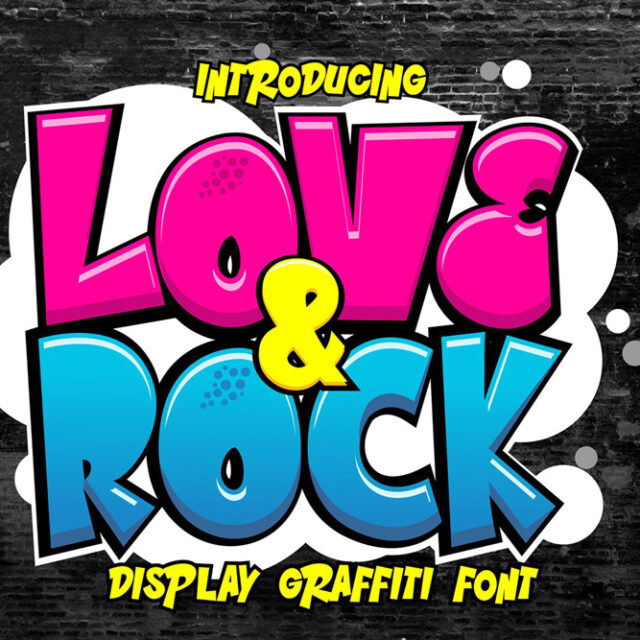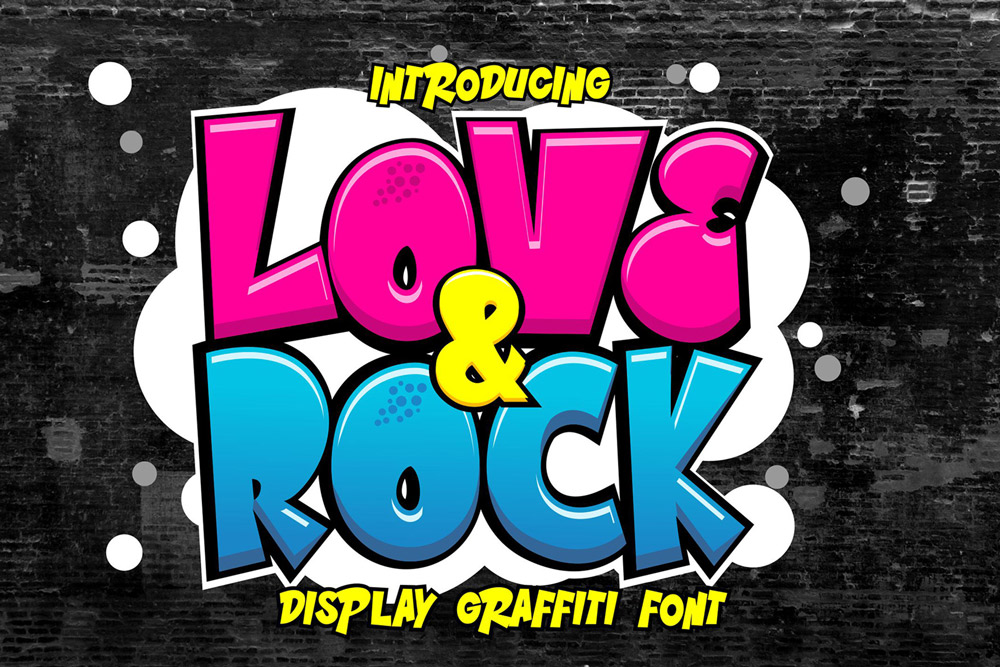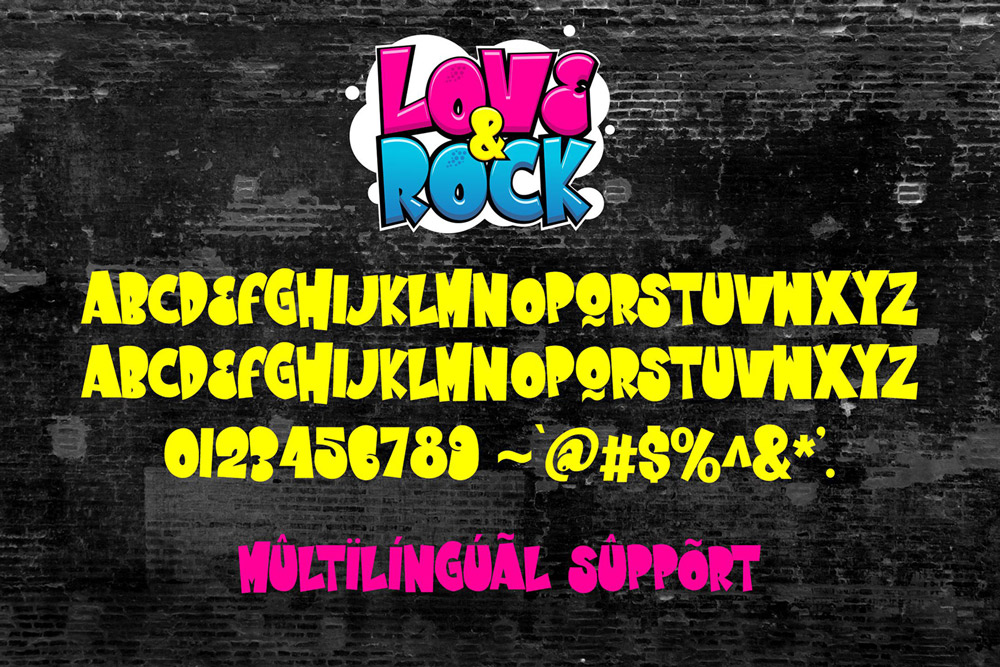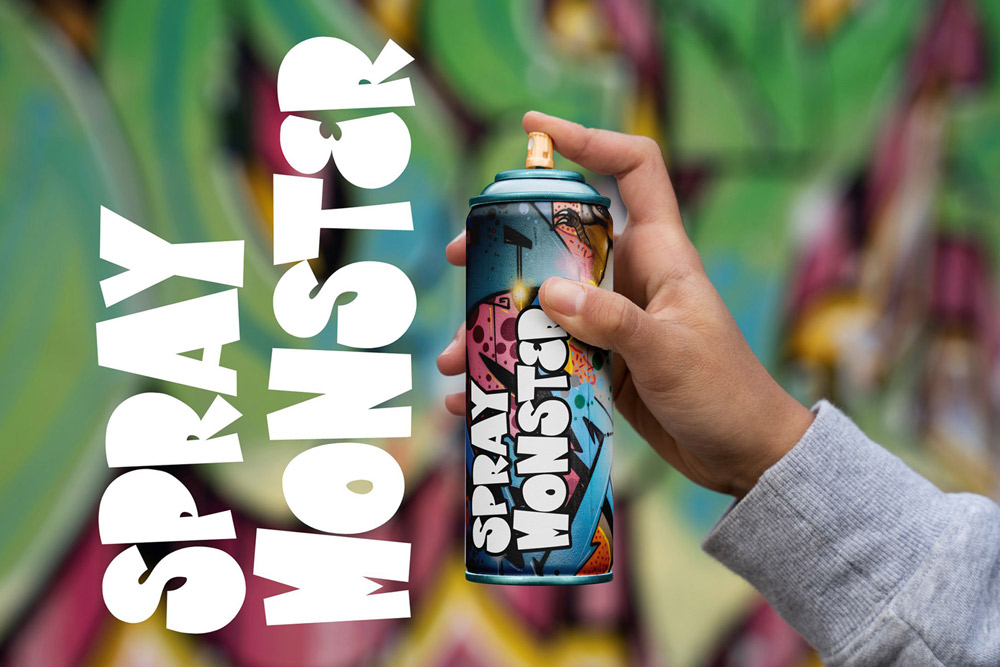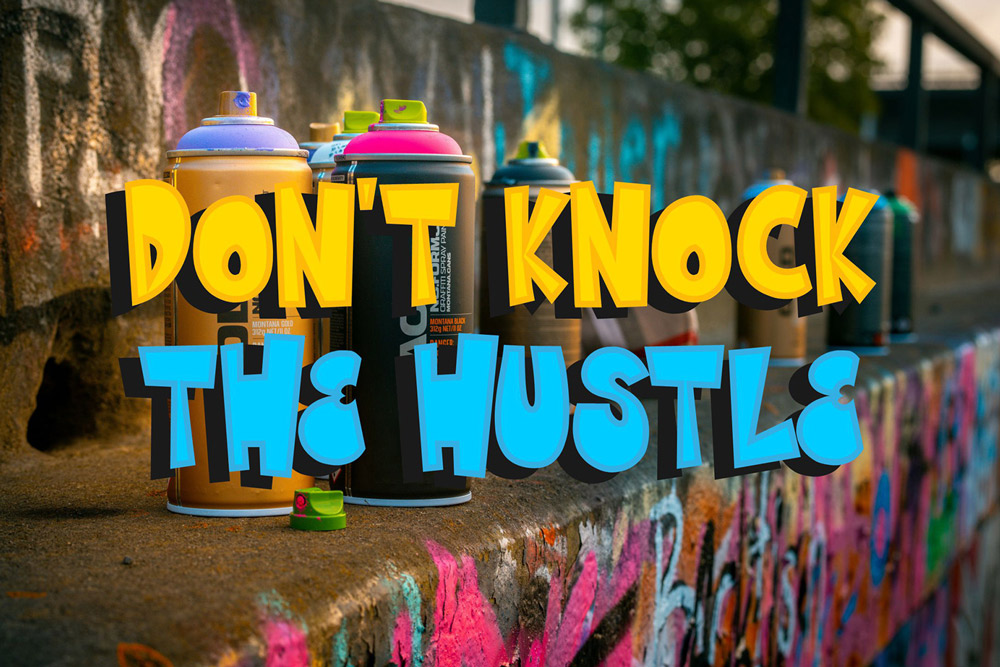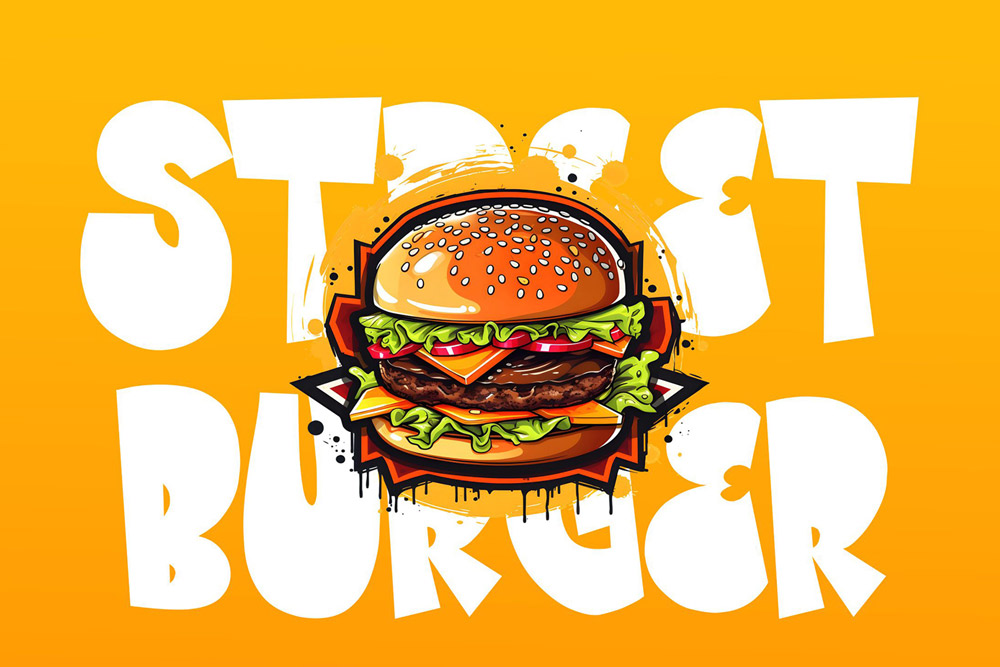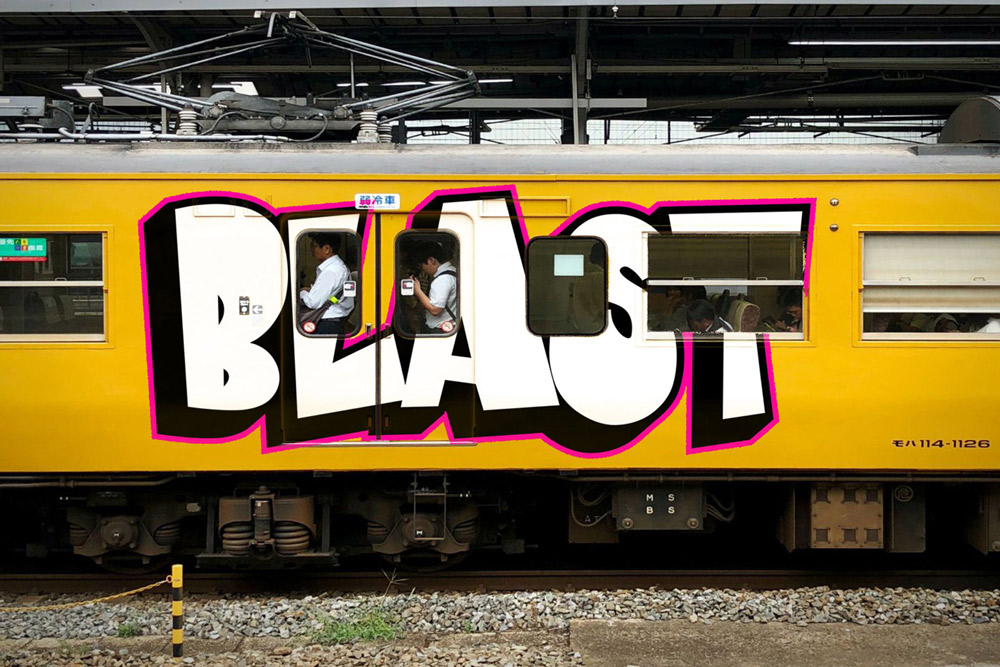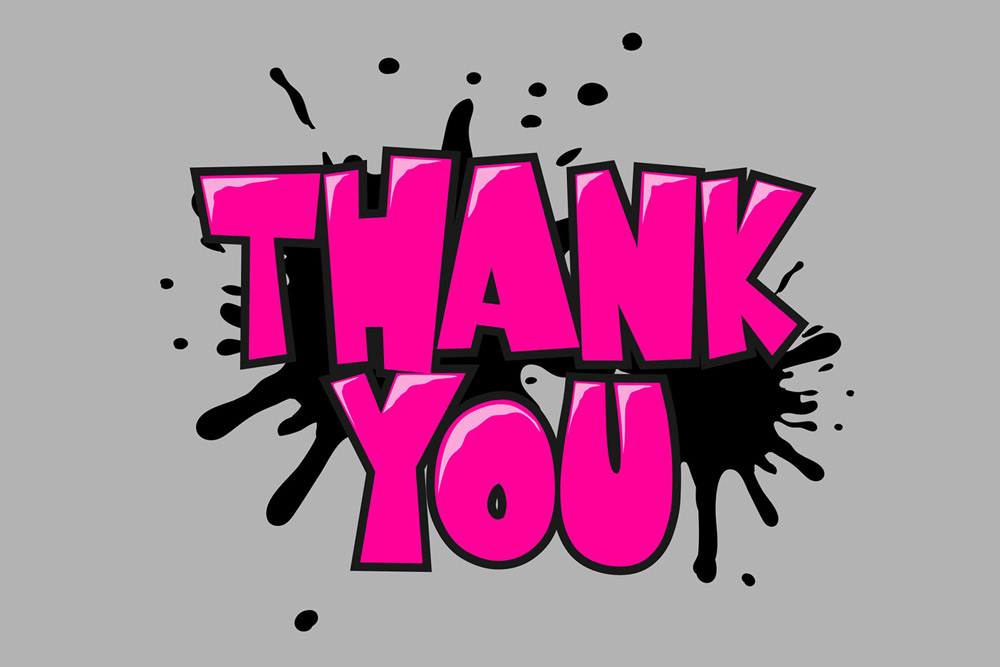
Love and Rock
About Love and Rock
Love and Rock – Raw Graffiti Font with Attitude
Love and Rock is a high-impact graffiti font that blends rebellious street energy with expressive rock-inspired lettering. Designed for creators who want to push boundaries, this urban graffiti font delivers a bold, emotional, and raw visual identity that instantly grabs attention. Whether you’re designing for streetwear, music branding, or edgy posters, Love and Rock graffiti font gives your typography a fearless voice.
This graffiti display font captures the essence of underground culture—where love meets chaos and creativity meets rebellion. Every stroke feels alive, making it perfect for designers who want authentic street style fonts that stand out in a crowded visual landscape.
Built for Street Expression and Creative Freedom
Love and Rock graffiti font is inspired by real tagging culture and rock aesthetics, combining fluid motion with sharp attitude. This graffiti font brings a unique rhythm to your designs, allowing text to feel expressive and alive. Its bold structure makes it highly readable while still maintaining the raw energy of an authentic urban font.
Whether you’re working on digital or print projects, this graffiti typeface adapts seamlessly. From album artwork to apparel graphics, Love and Rock transforms your ideas into powerful visual statements using a modern graffiti font style.
A Graffiti Font That Demands Attention
Every letter in Love and Rock graffiti font is carefully crafted to deliver maximum visual impact. The strokes are bold yet dynamic, giving your typography movement and personality. This graffiti display font is designed to dominate layouts, making it perfect for headlines, logos, and branding.
Unlike generic fonts, this urban graffiti font has character. It carries the spirit of rebellion and individuality—qualities that resonate strongly in today’s creative industries. If you want a graffiti font that feels authentic and energetic, Love and Rock is your ultimate choice.
Complete Character Set & Typography Features
This professional graffiti font includes everything you need to create bold and versatile designs across multiple platforms.
✔ Uppercase Characters
Strong and expressive uppercase letters designed with authentic graffiti font style for impactful typography.
✔ Multilingual Support
Supports multiple languages, making this graffiti typeface perfect for global branding and international projects.
✔ Numbers & Punctuation
Full set of numbers and punctuation ensures flexibility for all design needs using this urban graffiti font.
• Authentic graffiti font design inspired by street culture
• Bold and expressive lettering style
• Perfect for urban branding and streetwear design
• High readability for display purposes
• Versatile usage for digital and print media
• Ideal for logos, posters, and music artwork
• Strong personality and visual impact
Why Designers Love Love and Rock
Designers are drawn to Love and Rock graffiti font because it combines emotional expression with visual power. This graffiti font is not just about style—it’s about storytelling. It allows creators to communicate energy, rebellion, and passion in every design.
The flexibility of this urban graffiti font makes it suitable for a wide range of projects. From streetwear collections to album covers, designers trust Love and Rock to deliver bold results. Its strong shapes and dynamic flow make it easy to use while still offering a unique look.
Another reason designers love this graffiti display font is its authenticity. It doesn’t feel manufactured—it feels real, raw, and connected to street culture. That authenticity is what makes it stand out in modern design trends.
Perfect For Creative Projects
Love and Rock graffiti font is ideal for:
• Streetwear branding
• Music album covers
• Graffiti posters and flyers
• Social media graphics
• Logo design with urban style
Powerful Closing
Love and Rock – Graffiti Font is more than just typography—it’s a statement. It represents passion, rebellion, and creative freedom. If you want your designs to speak louder and hit harder, this graffiti font is your ultimate weapon.
Bring your ideas to life with a graffiti display font that embodies real street culture. Choose Love and Rock and turn every project into a bold visual experience that cannot be ignored.